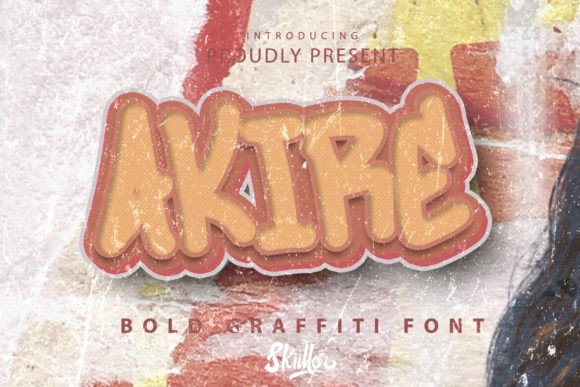
The Akire Font: A Fun and Quirky Graffiti-Inspired Typeface
Have you ever been working on a design project, and suddenly, you just can’t seem to find the right font? I recall a particularly frustrating moment when I was designing a flyer for a children’s birthday party. The theme was bright, colorful, and playful, but no matter which font I chose, it just didn’t feel right. That was until I stumbled upon the Akire Font, a graffiti-inspired typeface that instantly brought my design to life!
A Personal Review of Akire Font
As a designer, I’m always on the lookout for fonts that can add a touch of personality to my projects. The Akire Font definitely delivers on that front. Here are some things I love about it:
• ✨ Unique graffiti-inspired design that’s perfect for fun and playful projects
• ✅ Easy to read, even at smaller font sizes
• 💃 Highly versatile, works well for both digital and print projects
• 🎉 Comes with a range of OpenType features, glyphs, and stylistic alternates
Of course, no font is perfect, and Akire Font does have a few small quirks:
• 🤔 Some letters may not work well in all caps, so it’s best to use a mix of uppercase and lowercase letters
• ⚠️ Limited support for non-English characters, so it’s best to stick to English text
The Backstory of Akire Font
Akire Font was designed by a team of creatives who wanted to create a unique, graffiti-inspired typeface that would bring a touch of fun and personality to designs. The font was inspired by the vibrant street art scene, and its quirky, playful design makes it perfect for creative projects.
What is Akire Font? Akire Font is a graffiti-inspired typeface that’s perfect for fun and playful projects.
Does Akire Font support non-English characters? No, Akire Font has limited support for non-English characters. It’s best to stick to English text.